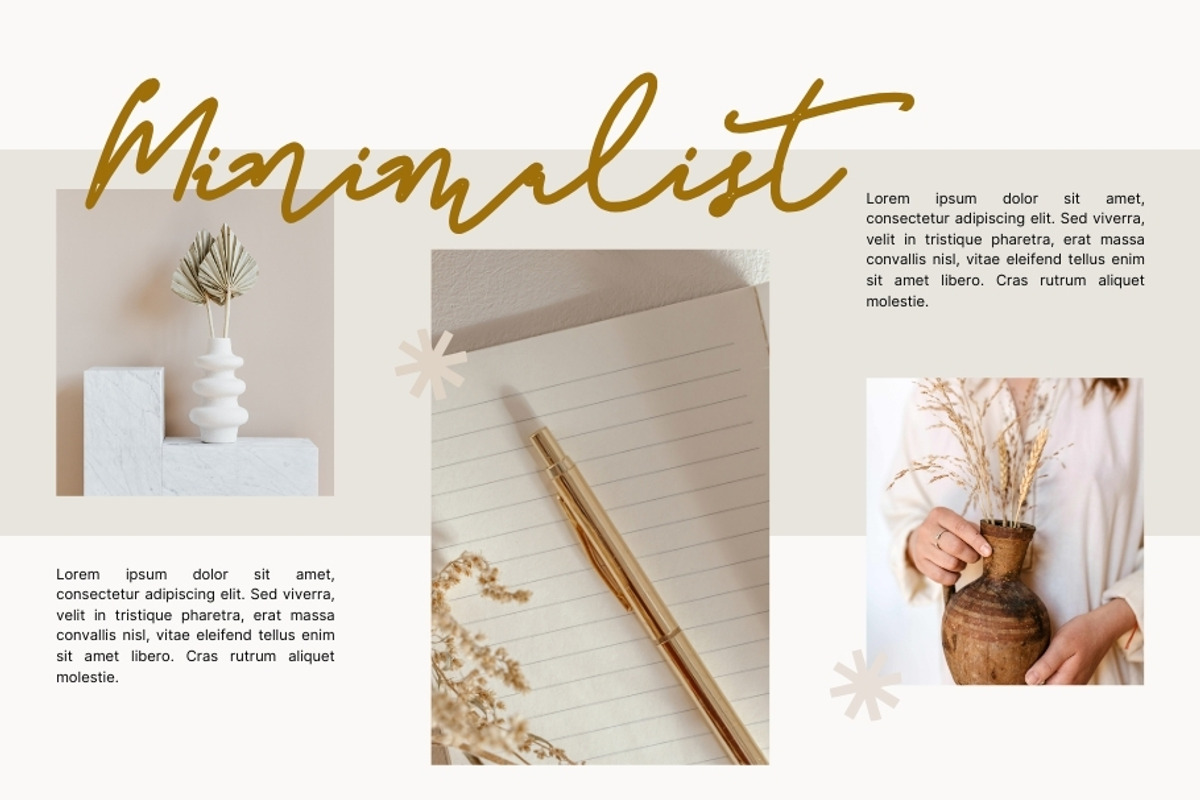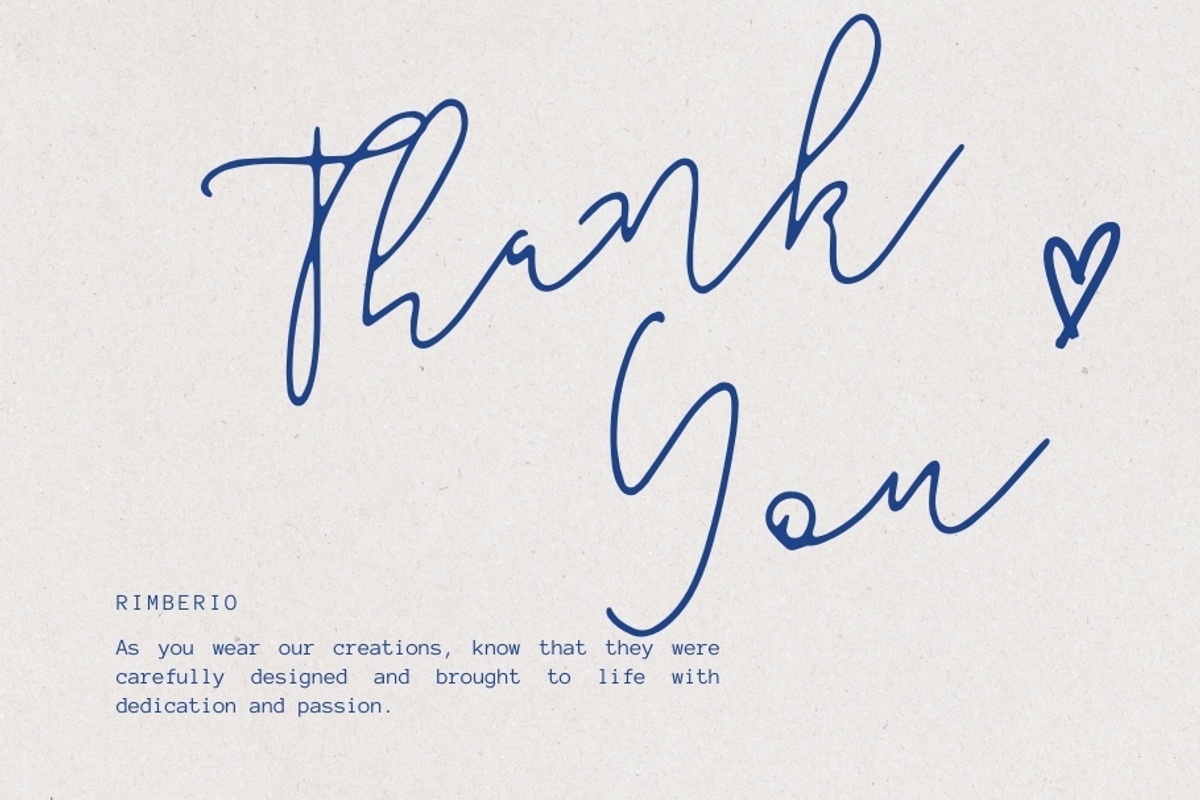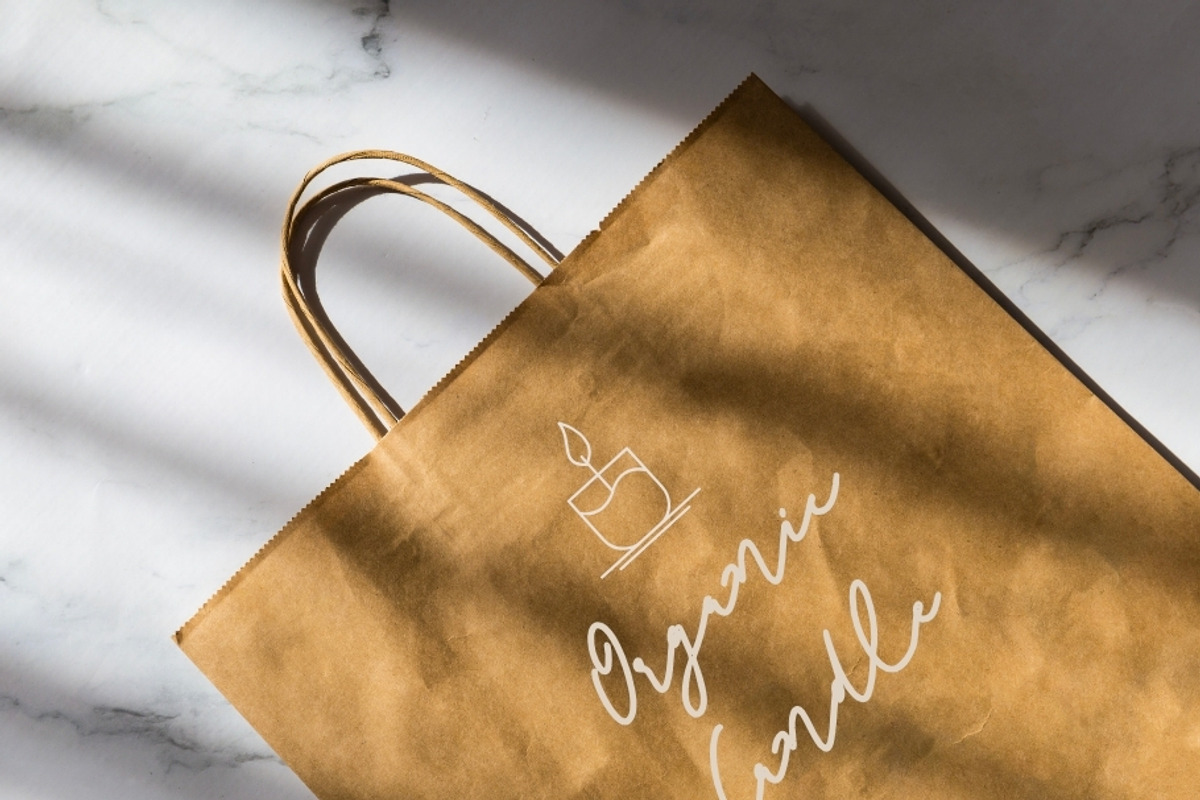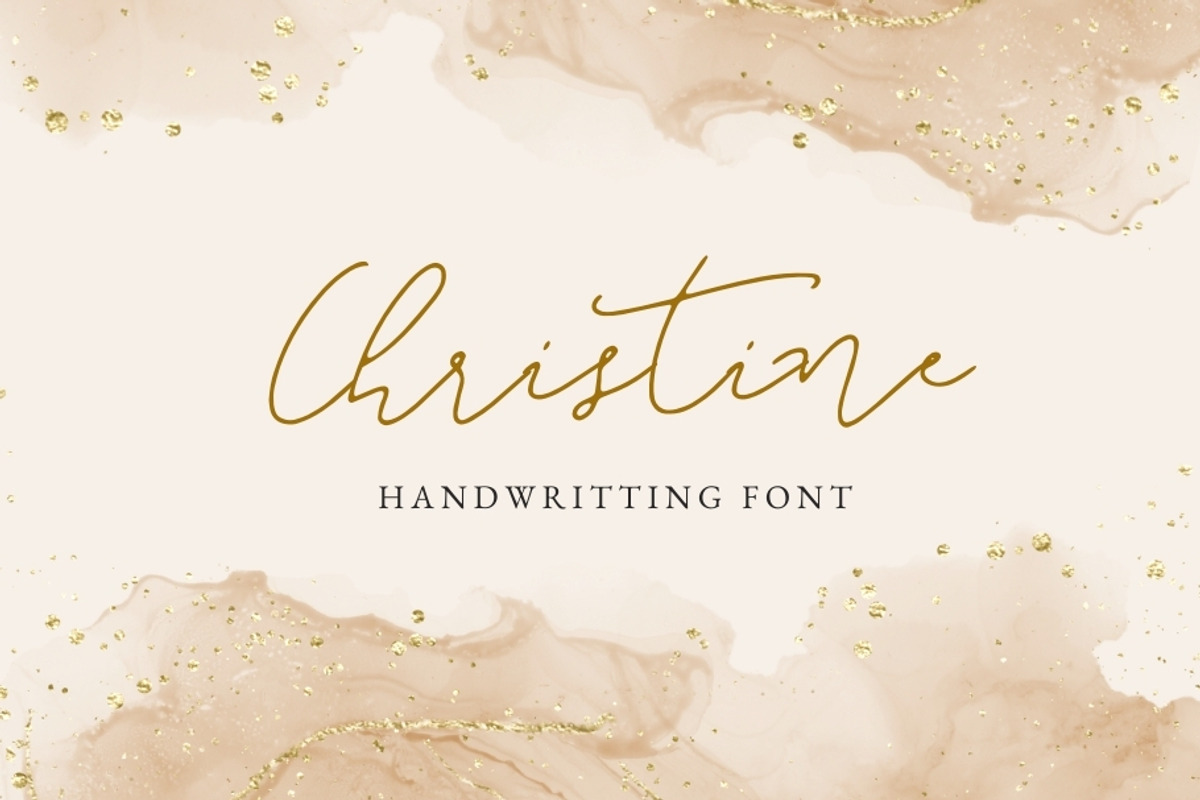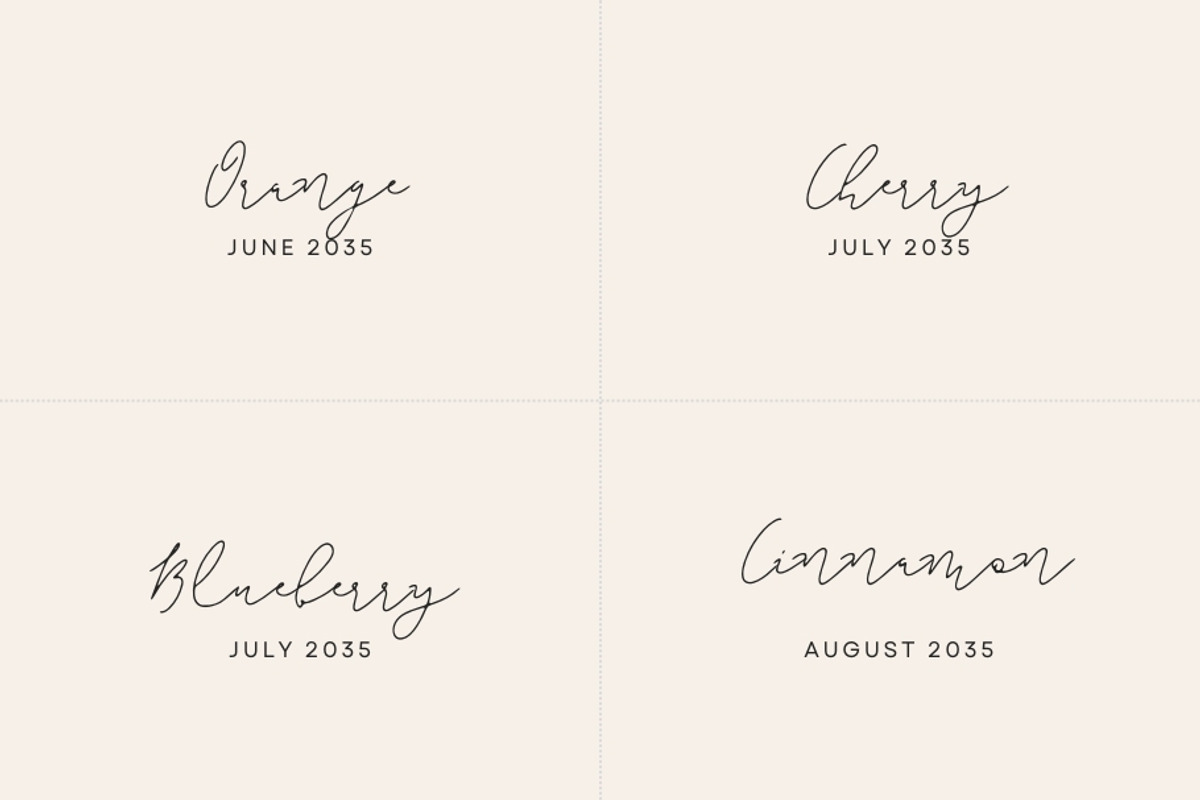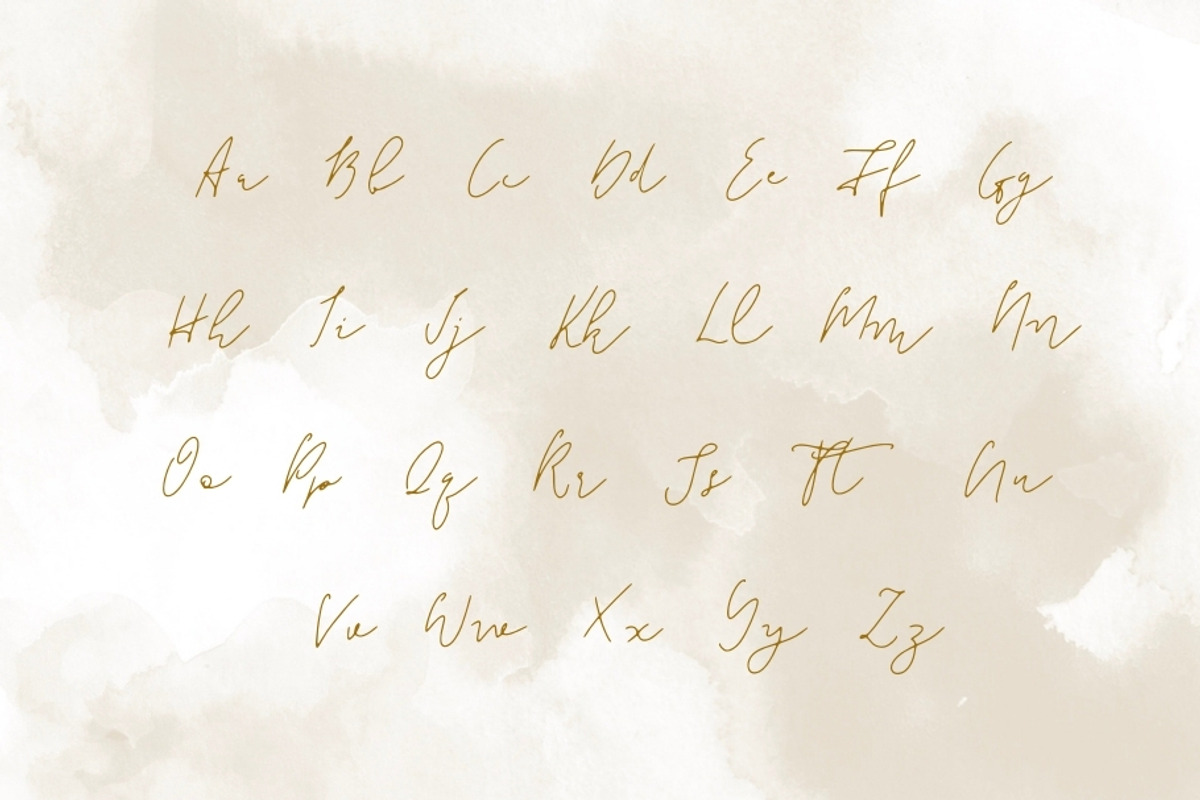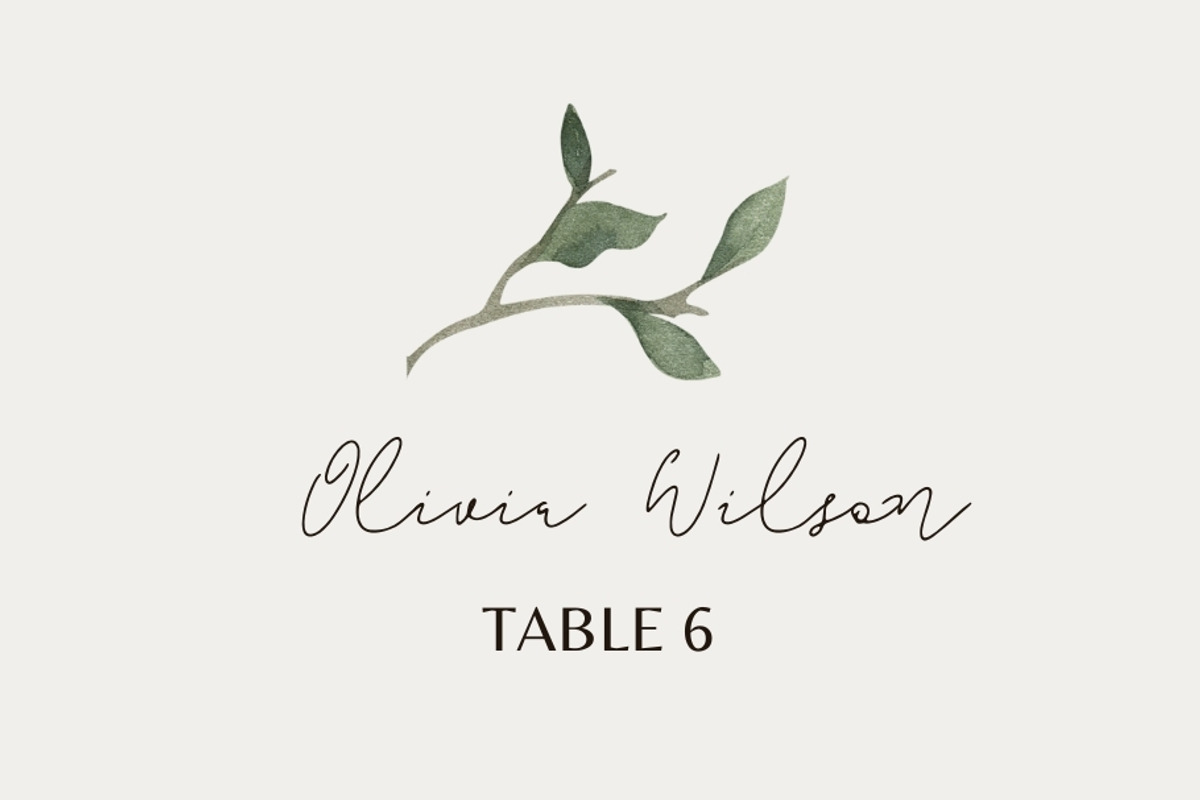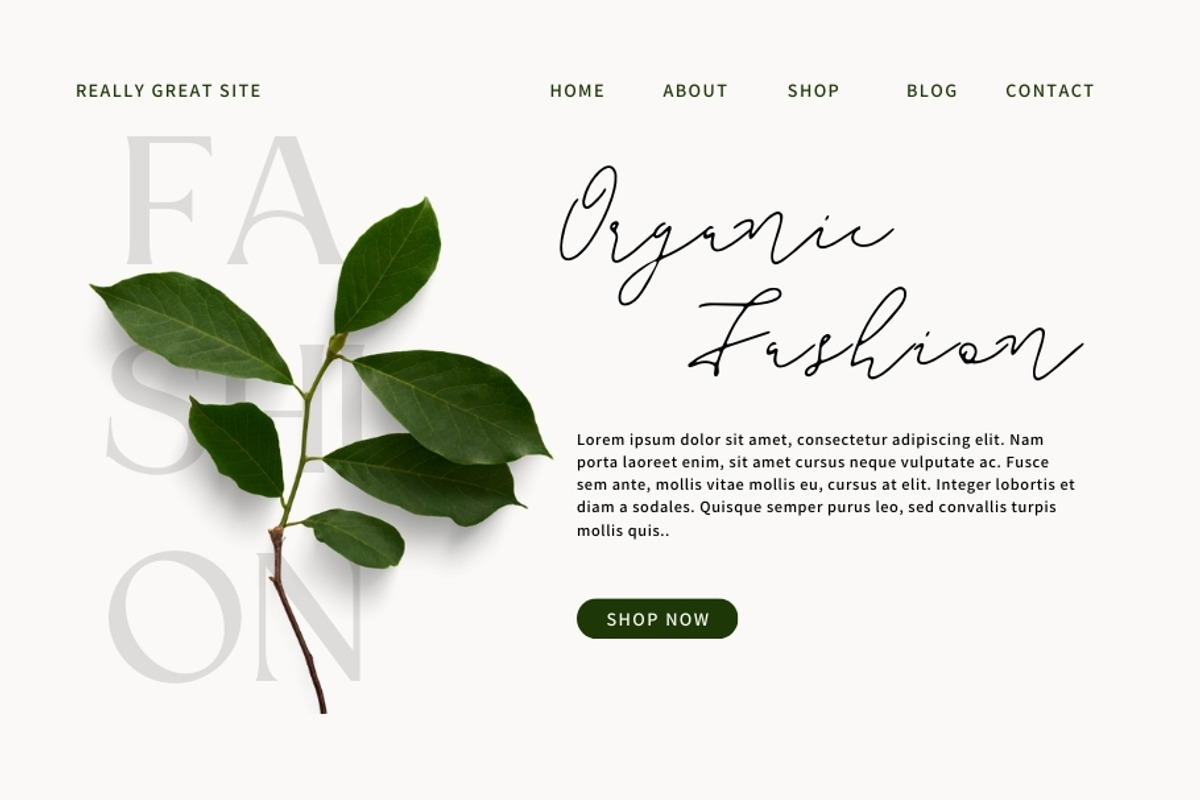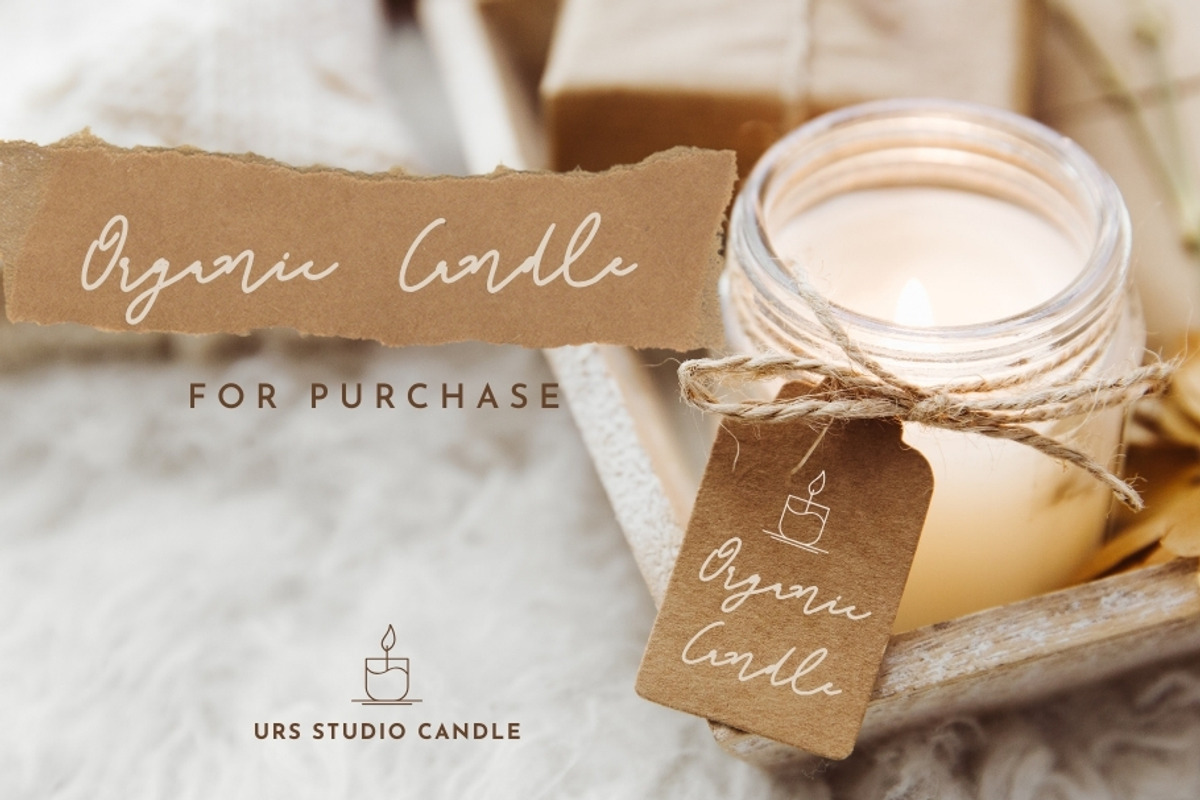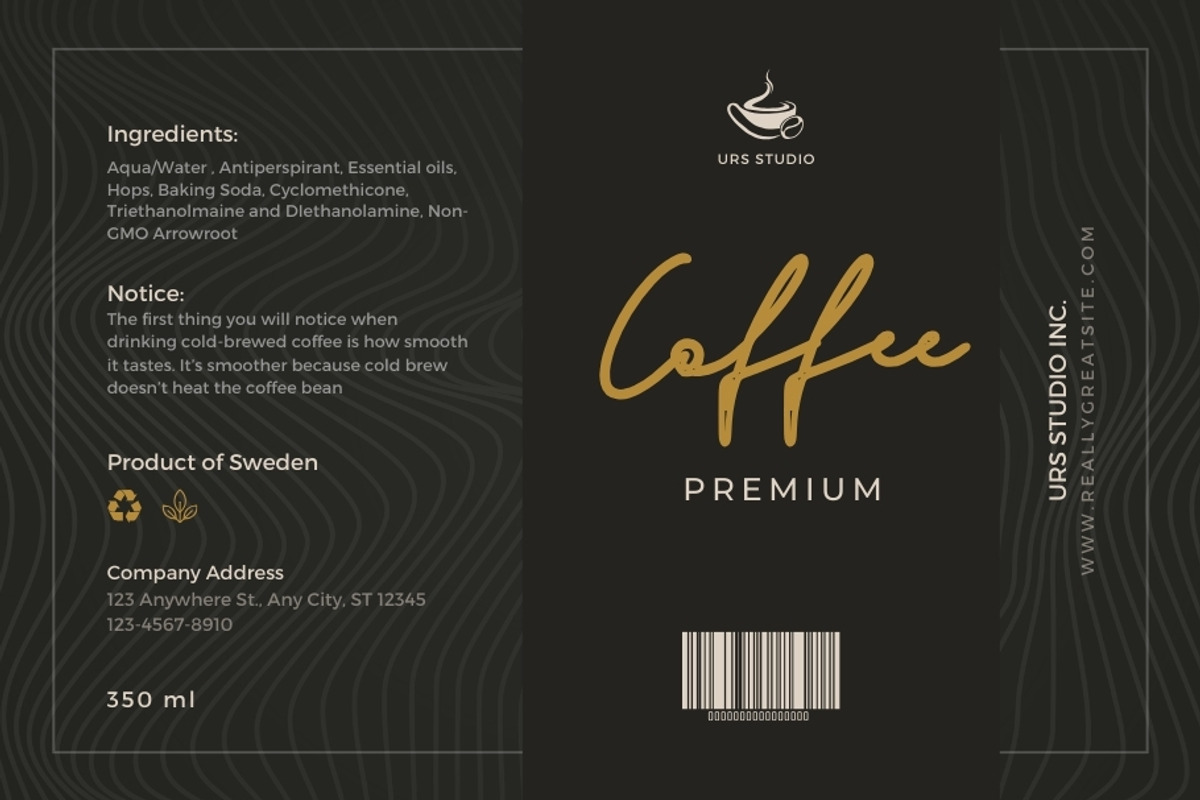
Christine Handwritting Font
Introducing Christine Handwritting Font
This Font can be used for any variety of purposes, such as: Signature, Photography, Wedding Ceremony, Invitation, Packaging, Logo Type, Branding Design, Fashion and also can be used for Business purpose.
This Font Template contains Modern, Elegant, Creative, Professional and Unique Concept.